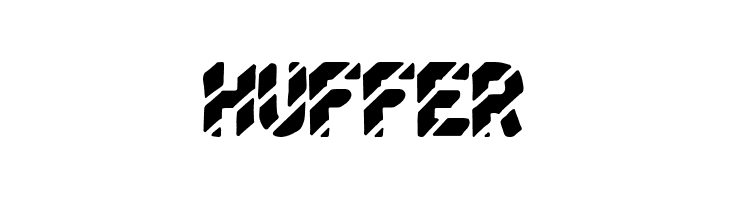
A geometric, abstract font with bold, fragmented characters and a modern aesthetic.
An abstract, artistic font with fragmented, geometric letterforms and dynamic shapes.
An abstract, artistic font with fragmented, bold characters.
A bold, abstract, and highly decorative font with fragmented letterforms.
An abstract, geometric font with sharp angles and fragmented shapes.
A bold, fragmented font with a dynamic and edgy appearance.
An abstract, fragmented font with sharp angles and irregular shapes, ideal for artistic expression.
A bold, fragmented font with a shattered glass effect.
A bold, fragmented font with a glitch-inspired design, perfect for modern, edgy projects.
A bold, geometric stencil font with angular, fragmented strokes.